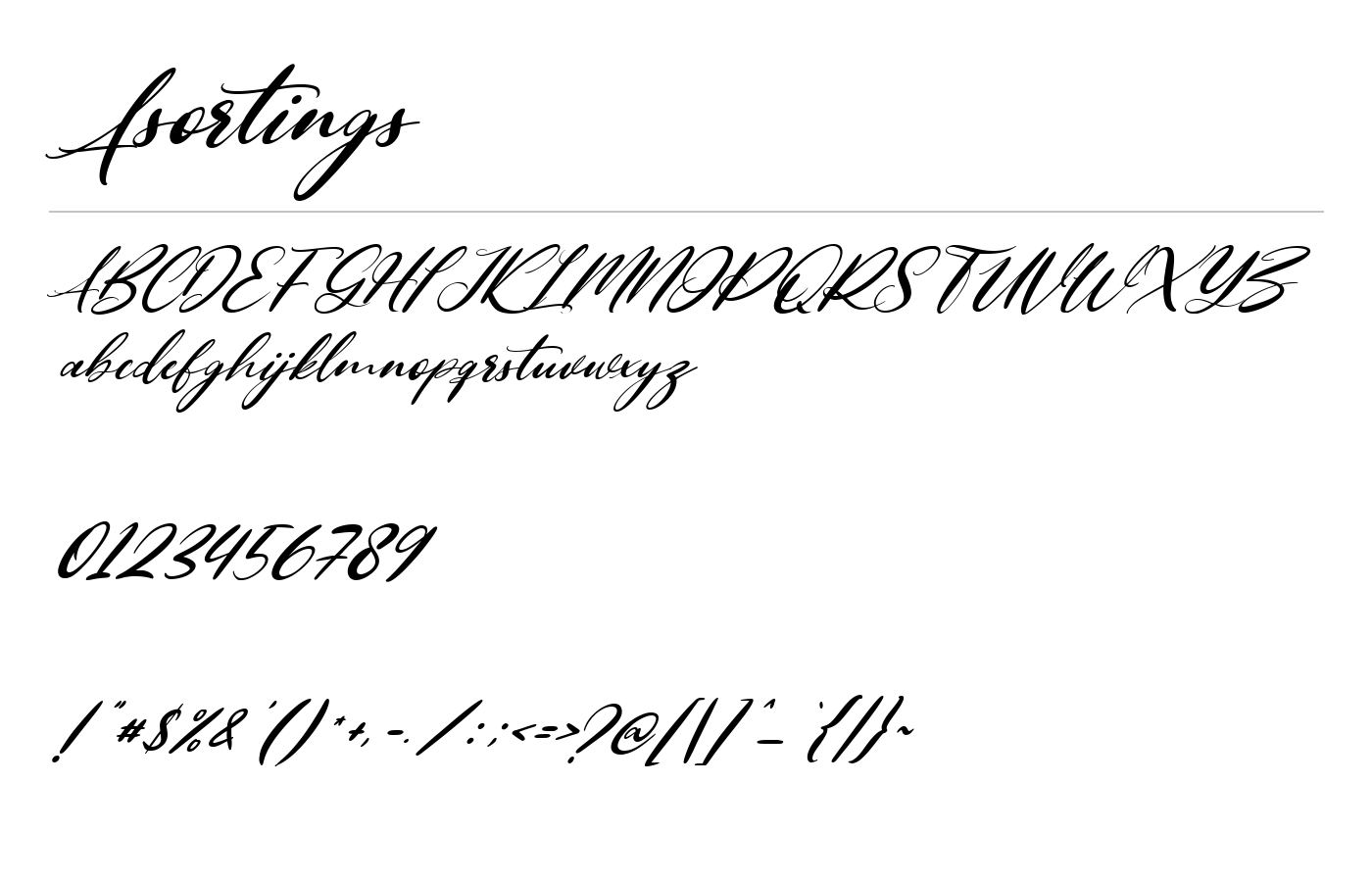
Asortings is an elegant script font characterized by its flowing, calligraphic style with graceful, high-contrast strokes that blend smooth curves and sharp details. Its refined letterforms, including stylish uppercase swashes and a casual lowercase, make it perfect for sophisticated branding, wedding invitations, and upscale packaging where a touch of luxury and personality is desired. This font shines in designs that require a romantic and artistic flair, adding a distinctive, handcrafted feel.
Asortings Font
About Asortings Font